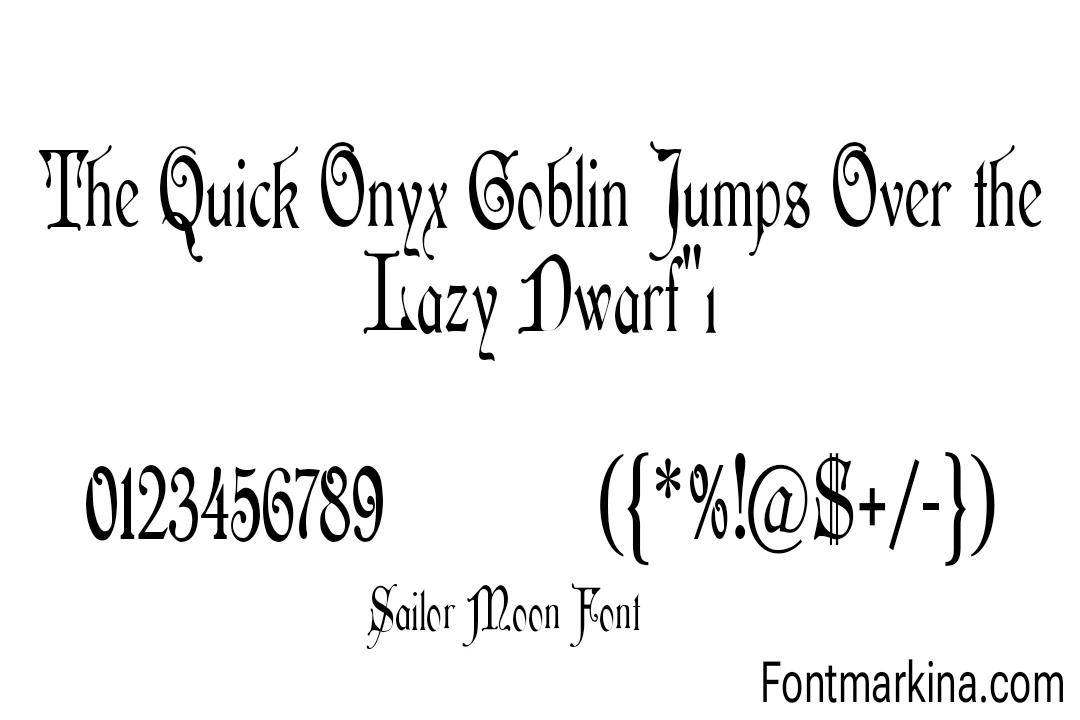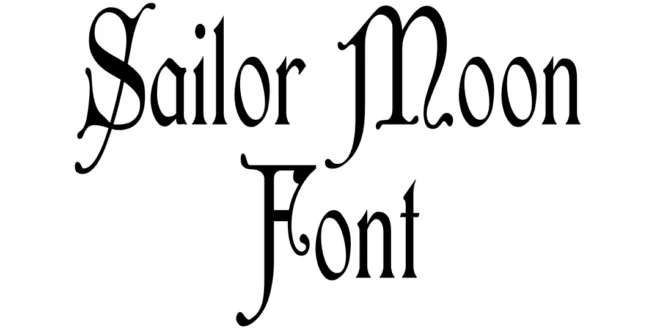
The Sailor Moon font is inspired by the typography used in the Japanese anime logo from the 1990s. It belongs to the decorative script category with soft curves, playful letter shapes, and a magical touch that reflects the celestial theme of the series.
The closest fan-made typeface is Sailor Moon Logo Texture or Sailor Moon Sailor Stars, which recreates the elegant title design seen in posters, game covers, and opening intros.
Usage of Sailor Moon Font
Designers often use this font in Canva, Adobe Photoshop, and Illustrator to build anime thumbnails, YouTube channel art, stickers, and themed header text.
Its smooth lines and fantasy look work best in large display sizes, so it’s ideal for titles, not long paragraphs. For web projects, you can apply it in CSS for hero sections or headings to add a magical anime vibe.
What font is used in the Sailor Moon logo?
The logo uses a mix of fonts, with the main “Sailor Moon” letters styled in a whimsical, handwritten typeface, while the Crystal or “Pretty Guardian” parts use different decorative fonts.
Are there alternatives to the Sailor Moon font?
Yes, there are Adreena Script Font and Adelliya Script Font available that replicate the style of the Sailor Moon logo.